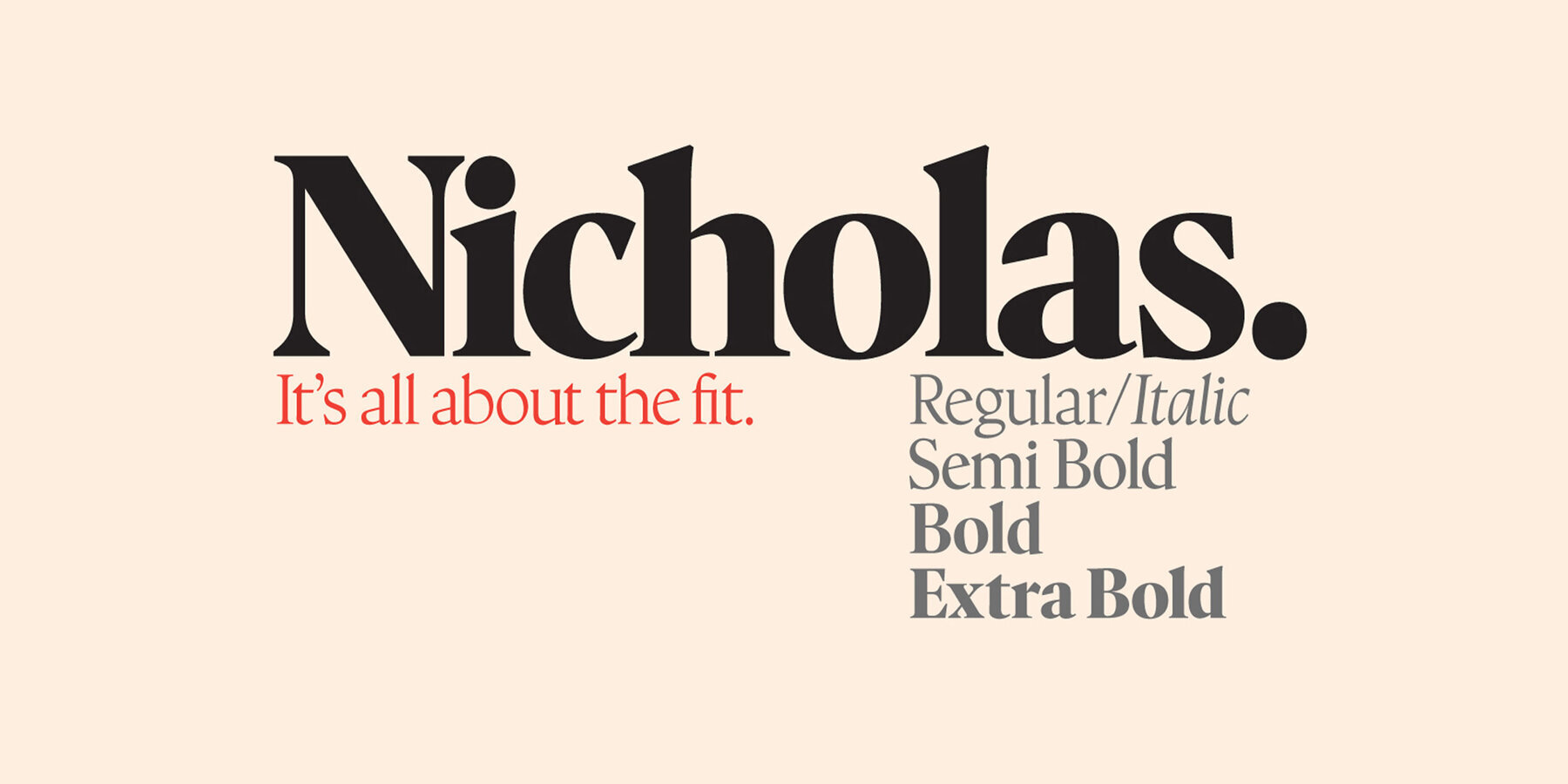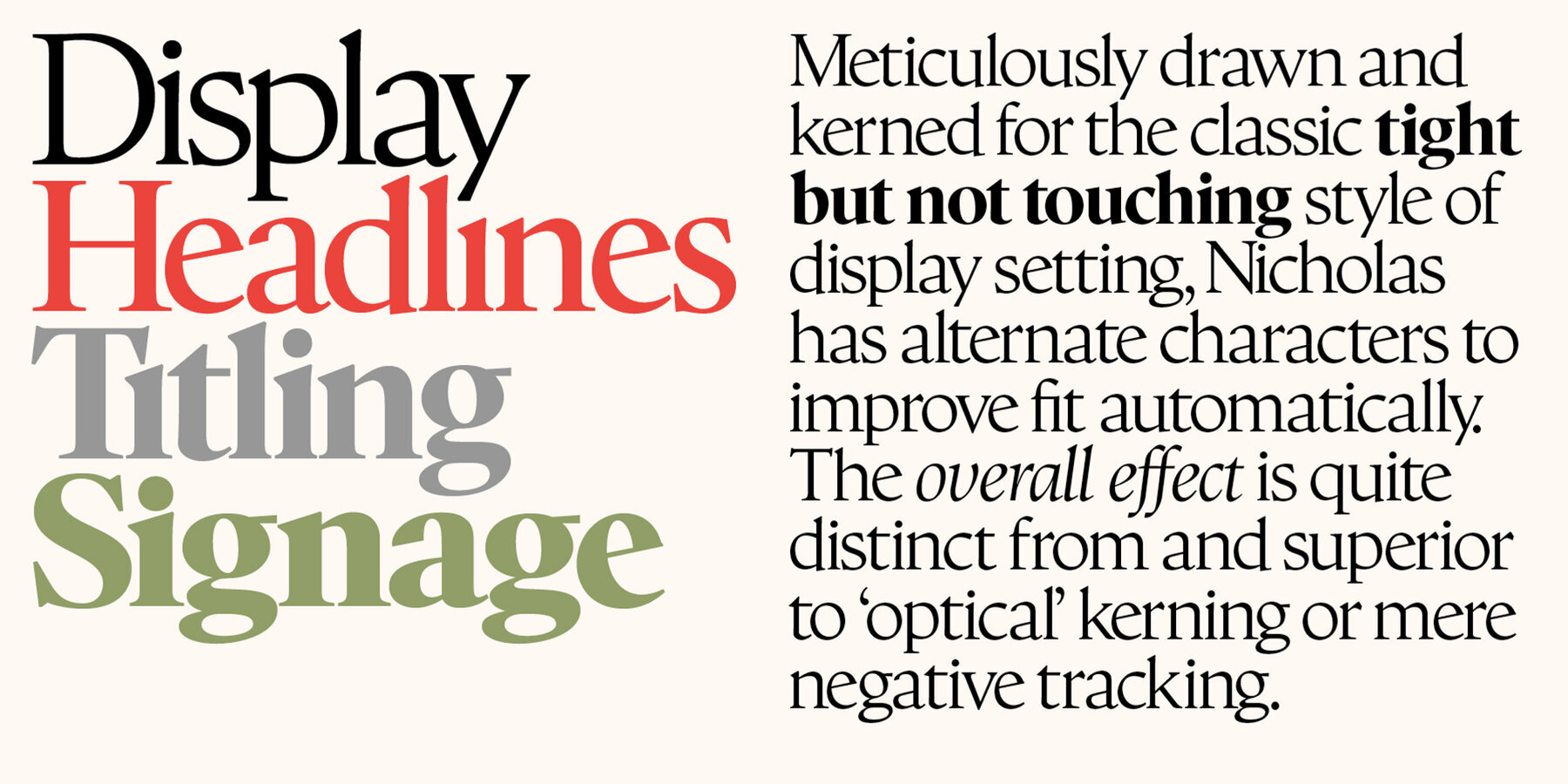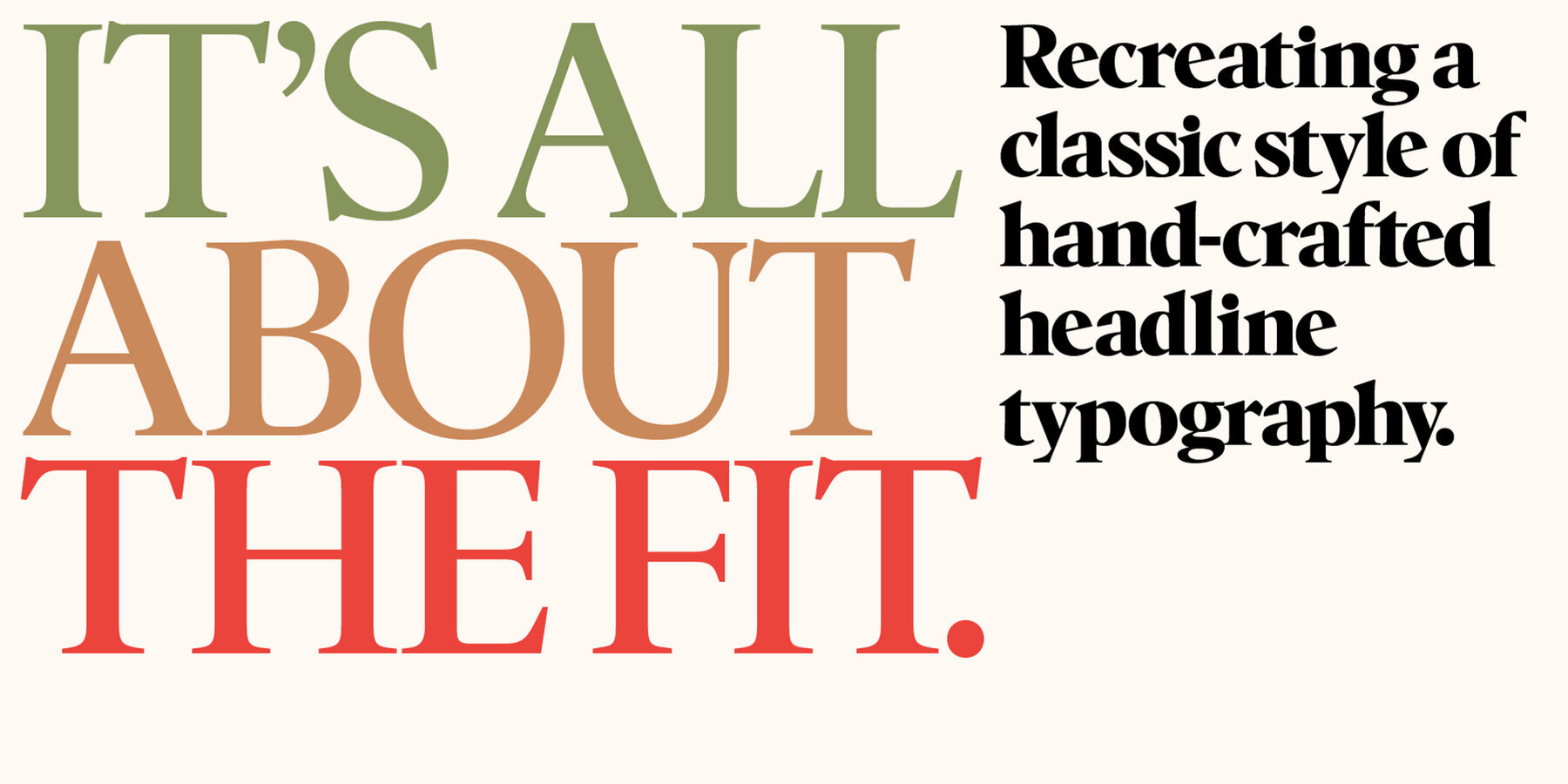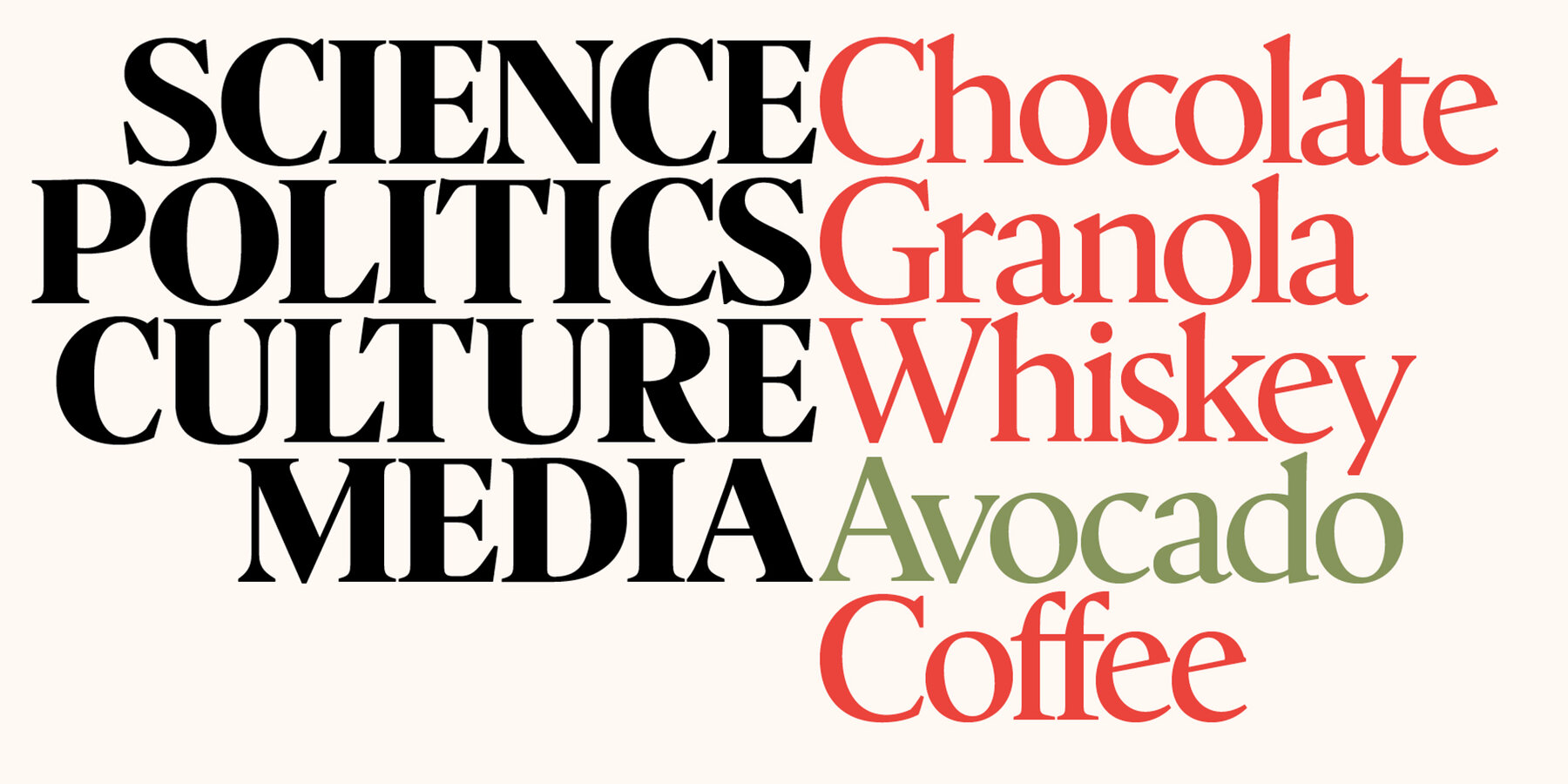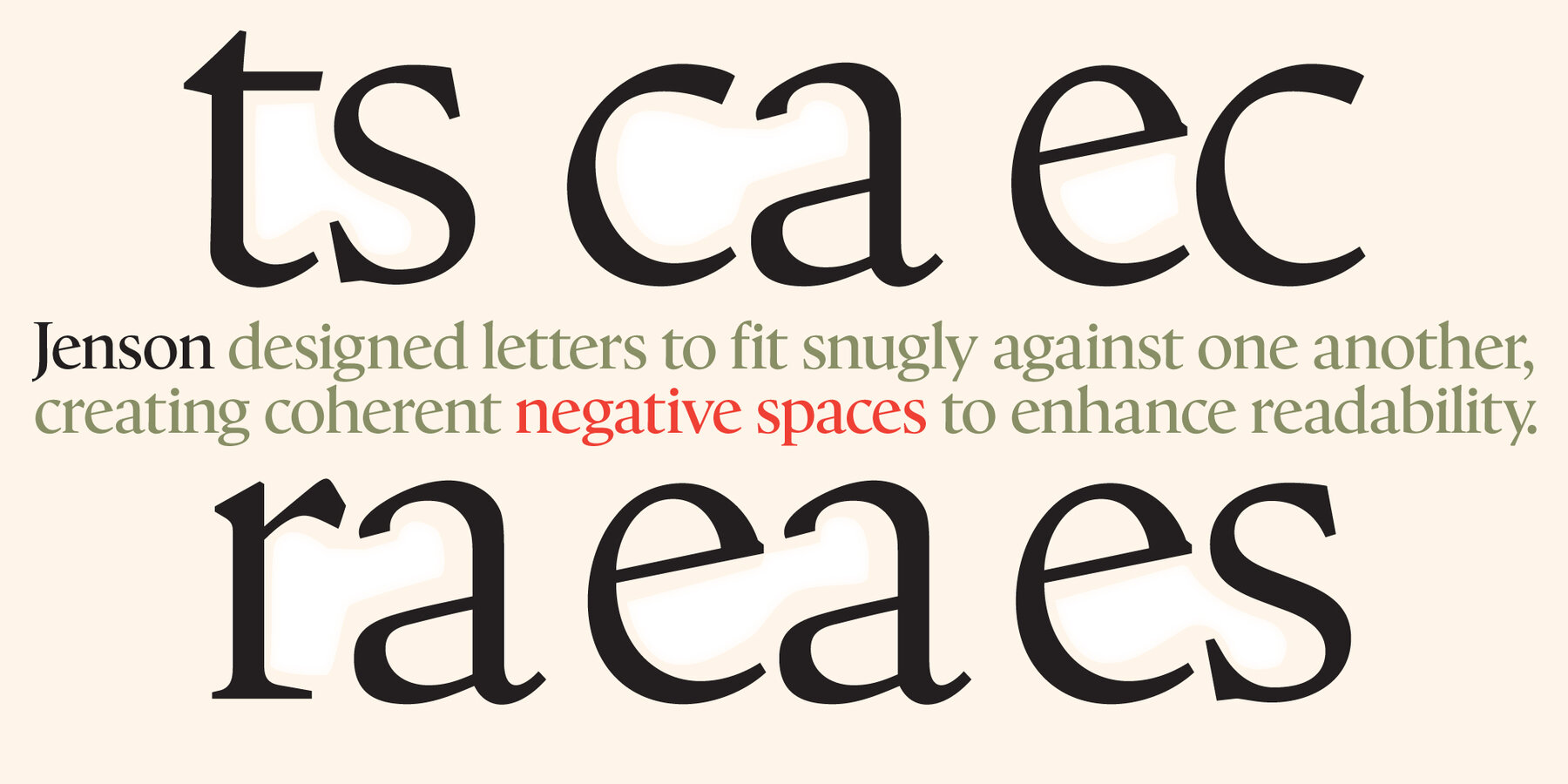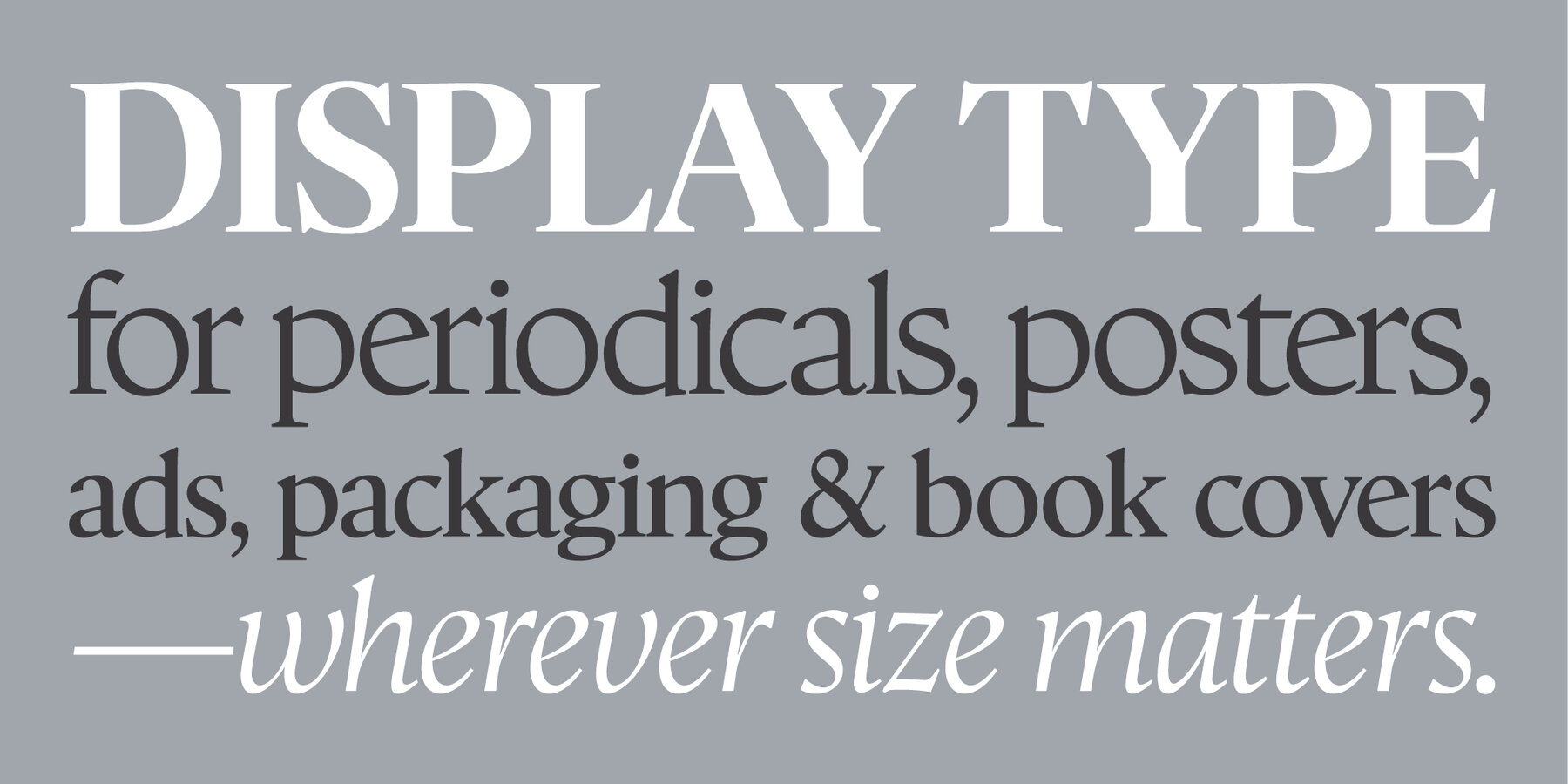
Nicholas is meticulously drawn and kerned for the classic “tight but not touching” style of 1970s hand-crafted display setting, with alternate characters to improve fit automatically. The overall effect is quite distinct from and superior to ‘optical’ kerning or mere negative tracking. The headline version of Shinntype’s Goodchild.